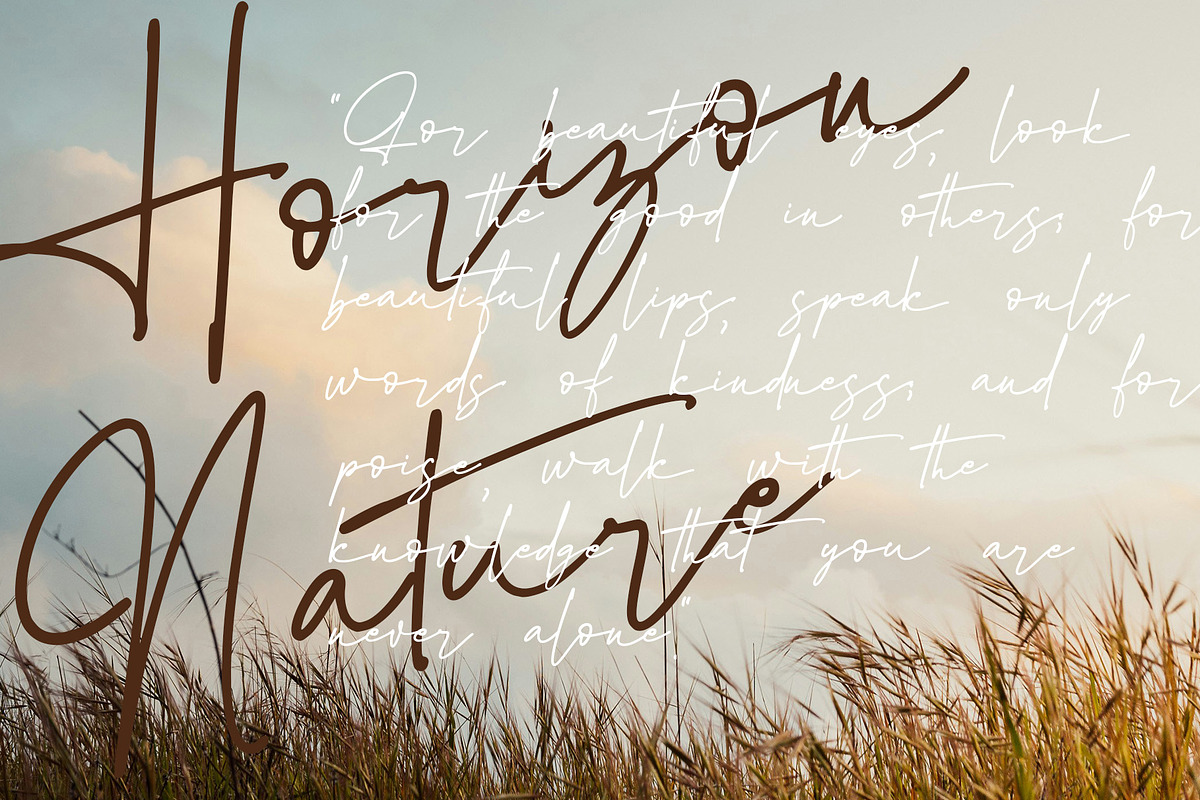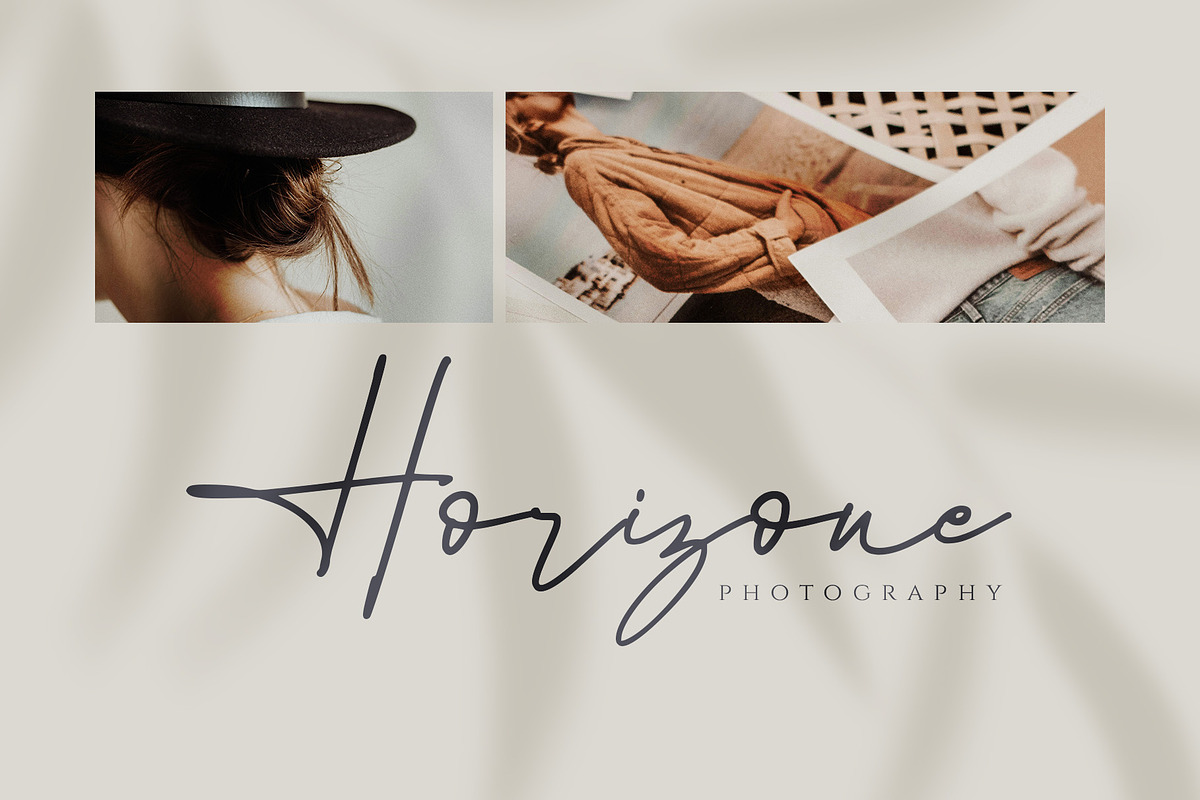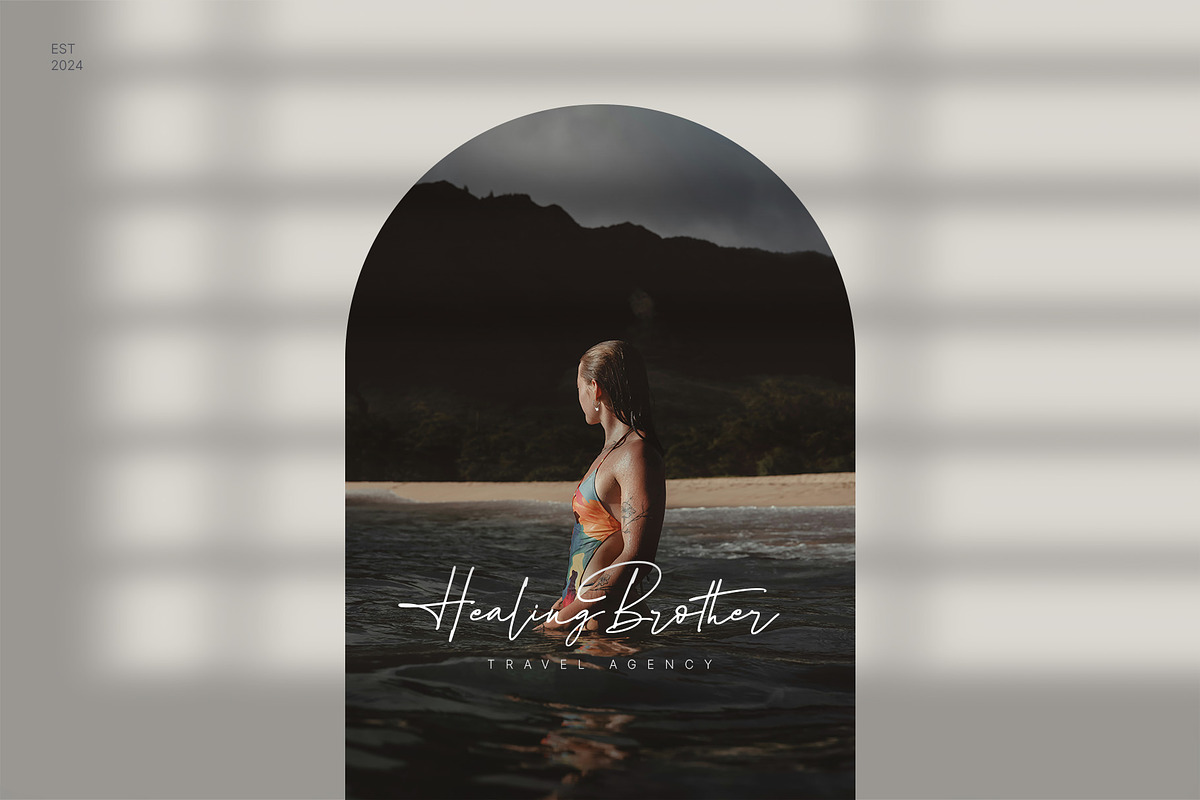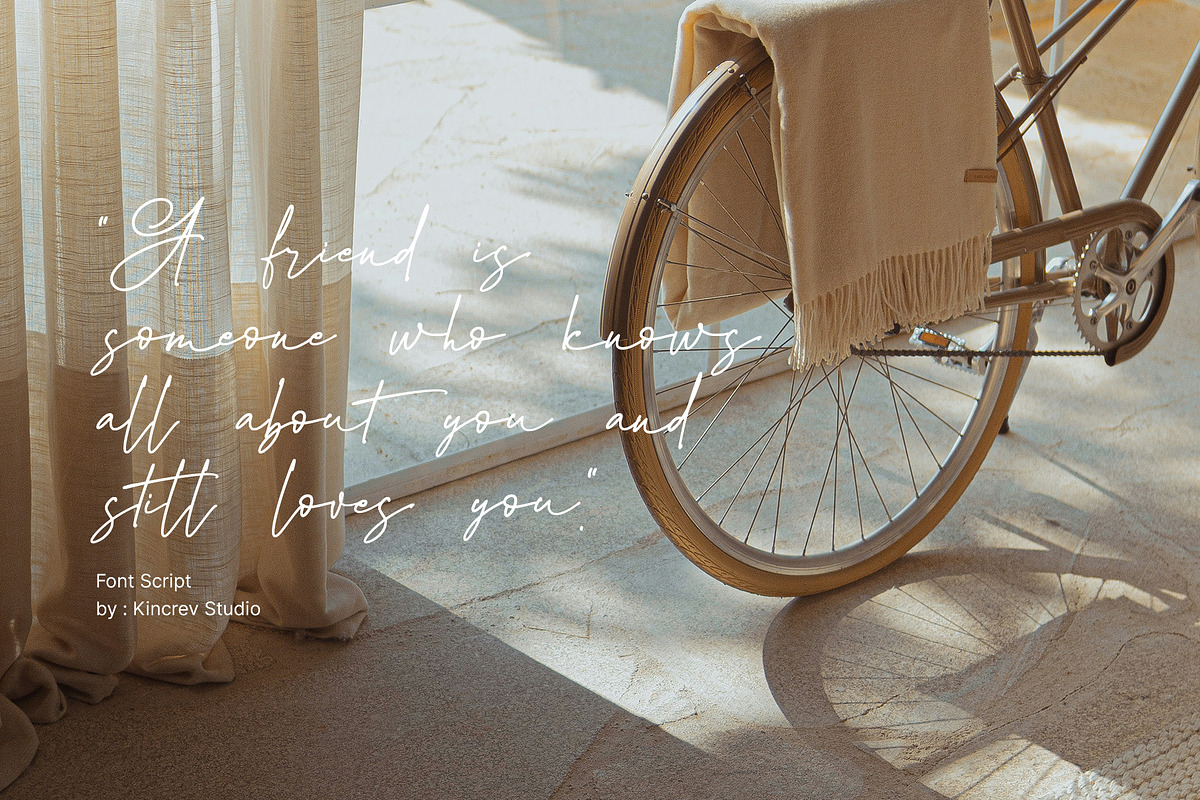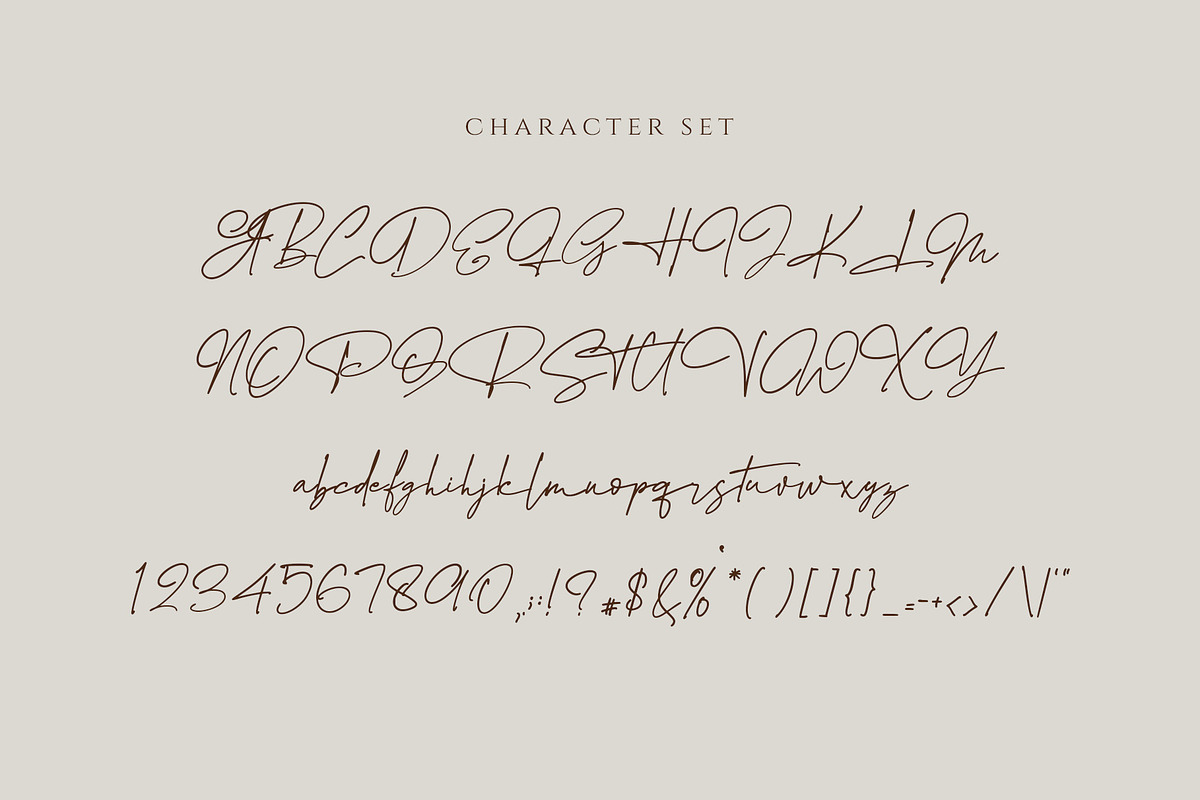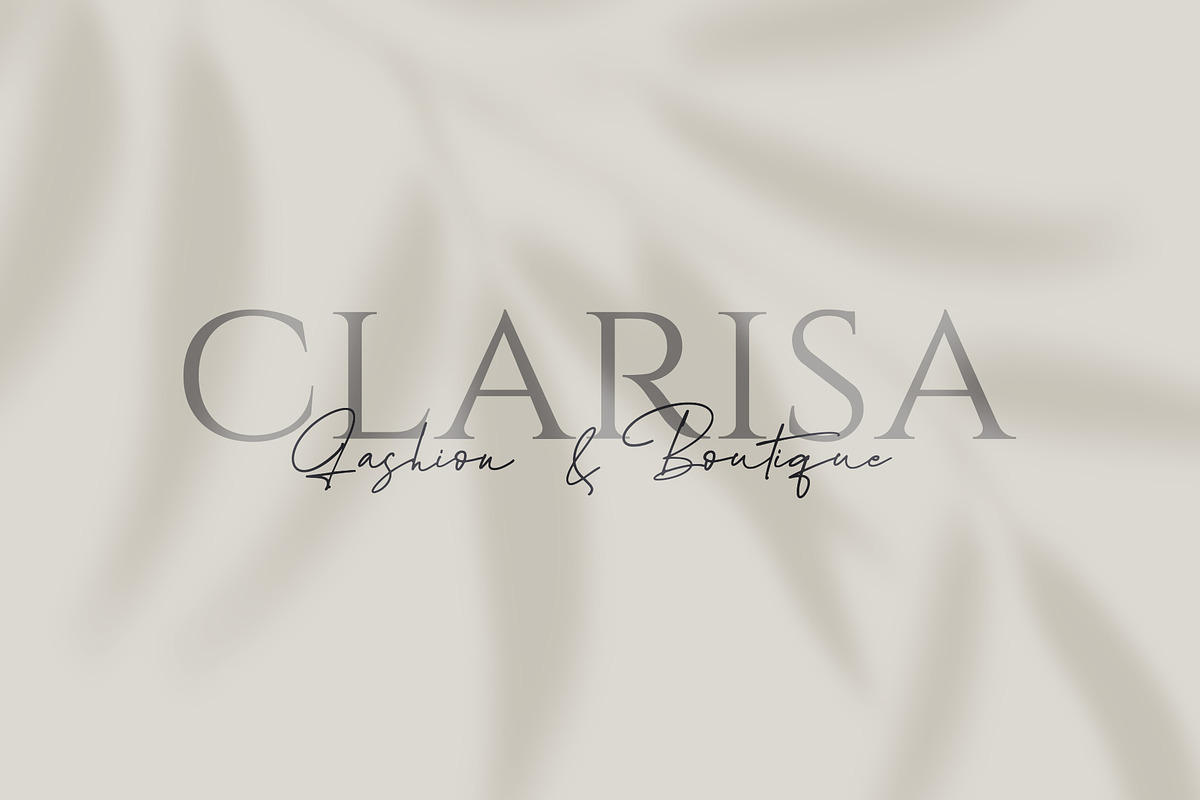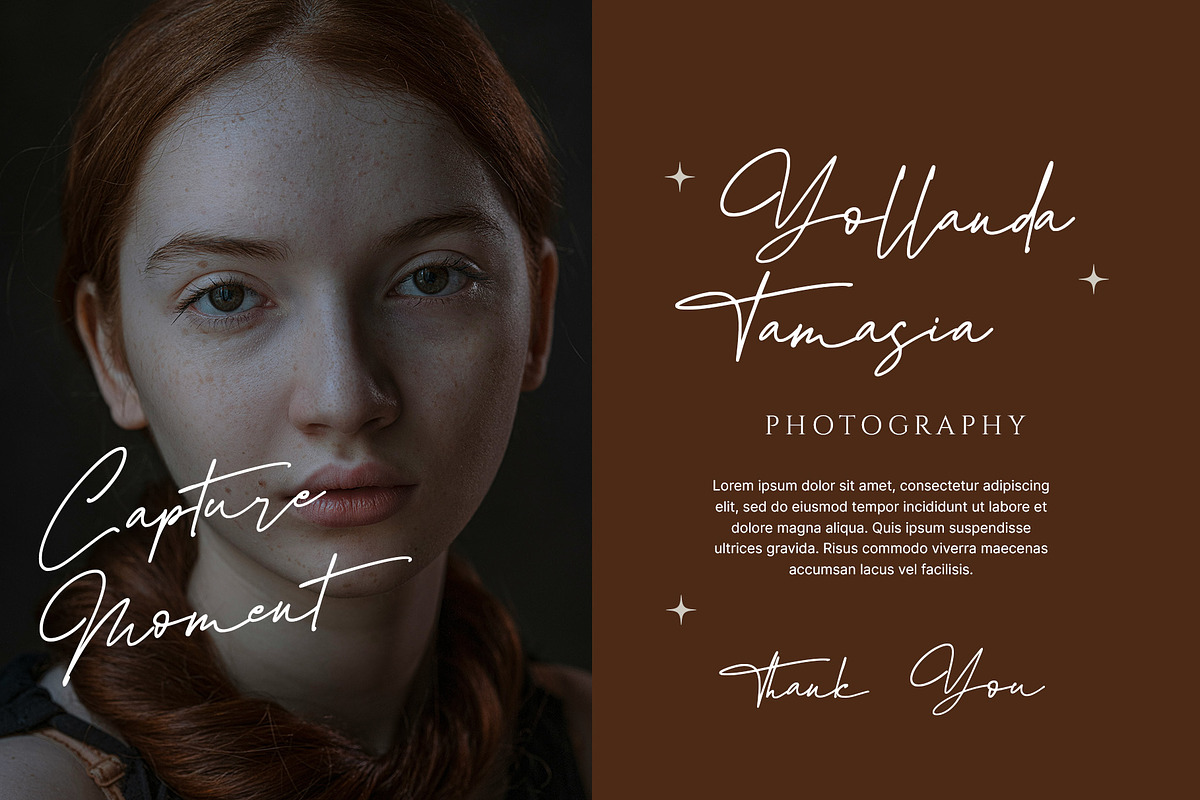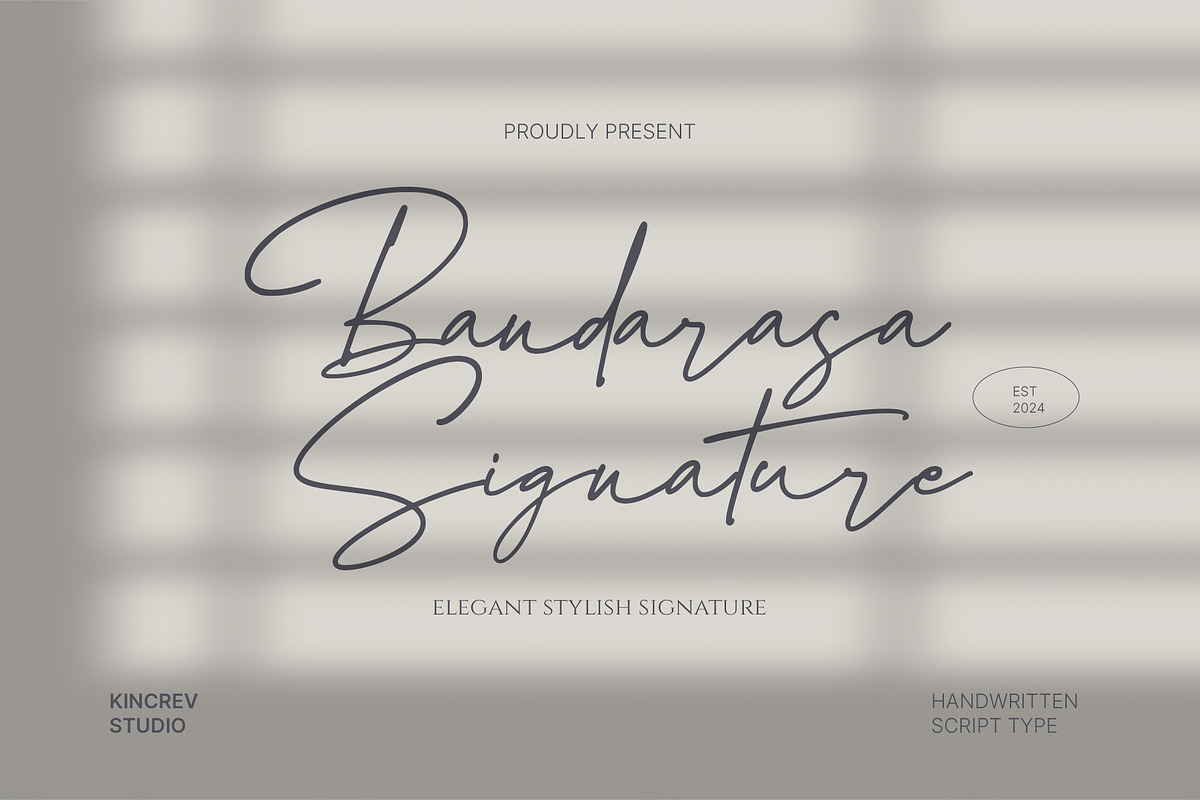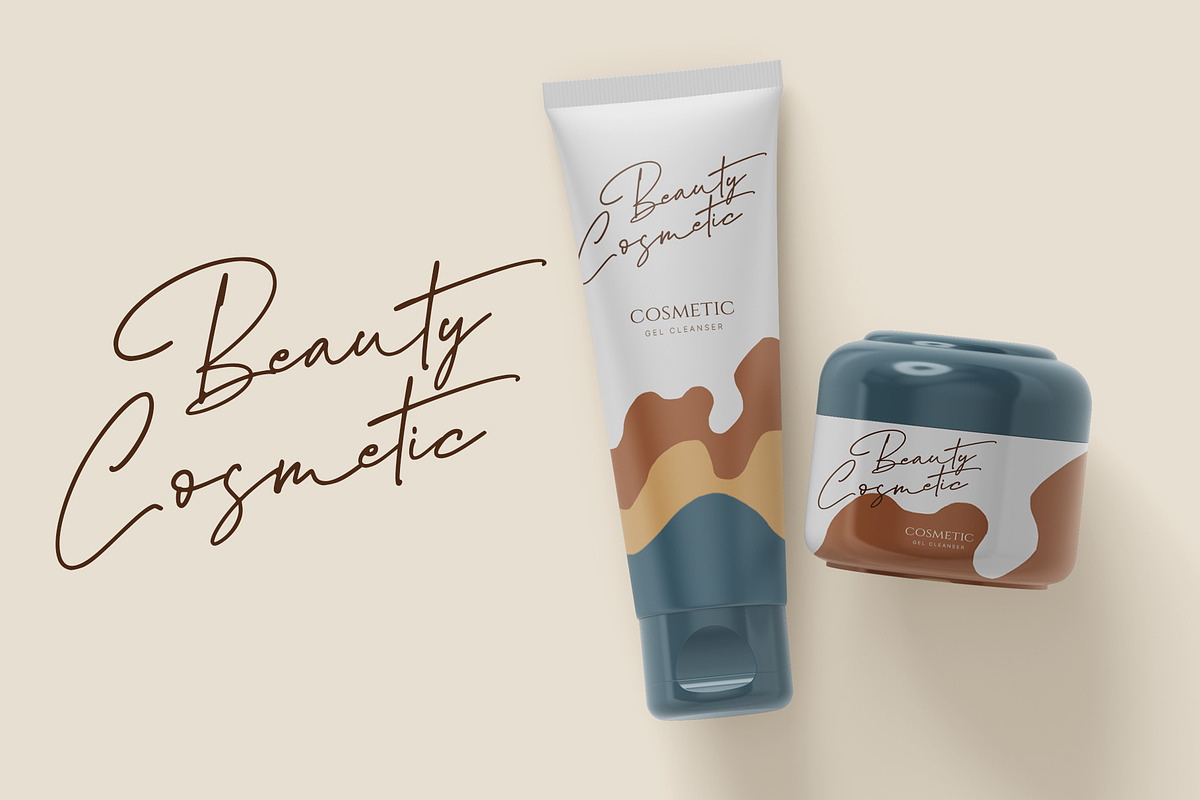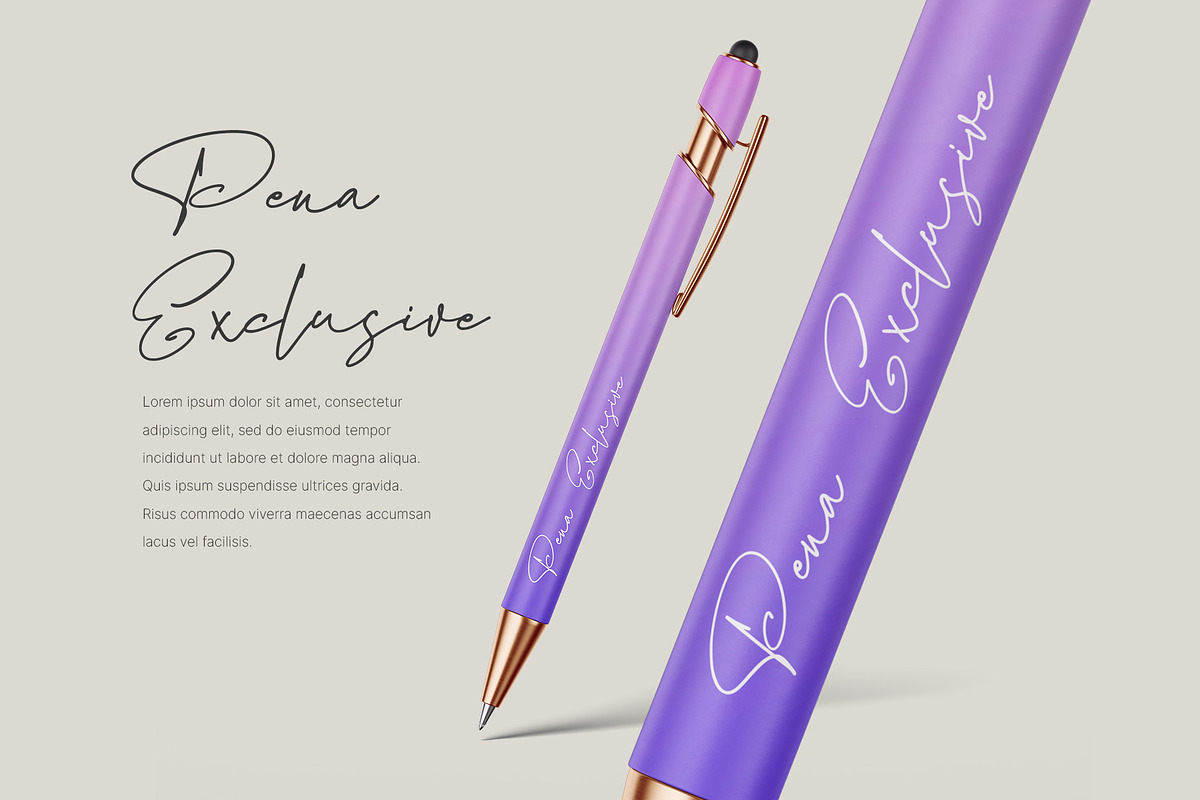
Bandarasa Signature
Hello, Everyone! Ready to make your branding design outstanding? If you need to create a creative, modern and elegant look for your business, work on a poster for an event, or whatever your projects are, Bandarasa Signature - Elegant Stylish Signature is the perfect one for you.
Bandarasa Signature, a script font is font for you to get your designs with creative, modern and elegant look. It is made in uppercase & lowercase letters which are easy on the eyes and nice to look at, and easy to read. This font is designed to bring your brandings to life and add a touch of modernity, fun and style.
Bandarasa Signature fits for any design projects, such as posters, banners, logos, book covers, album covers, quotes, invitations, greeting cards, name cards, headings, printed products, merchandise, social media, etc. Find out more ways to use this font by taking a look at the font preview.